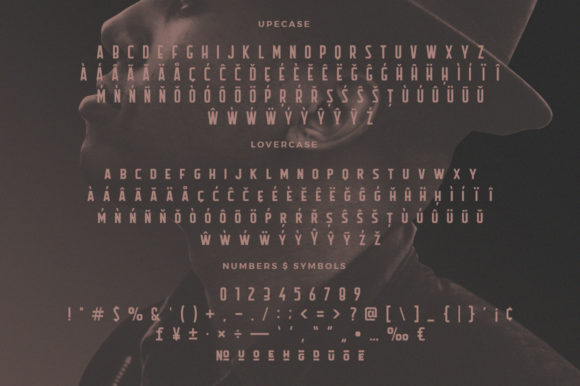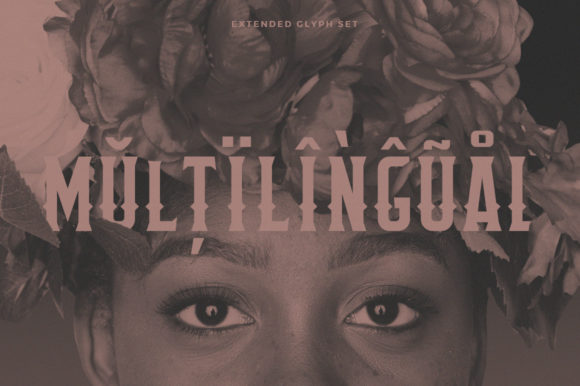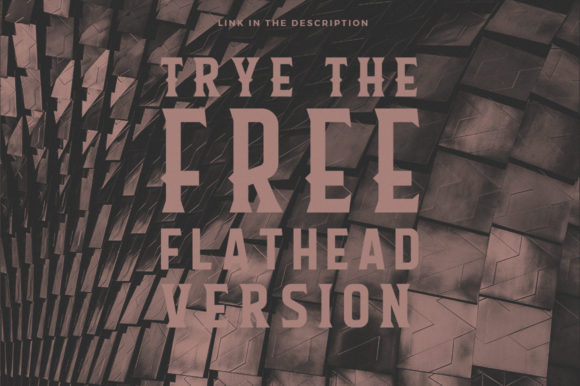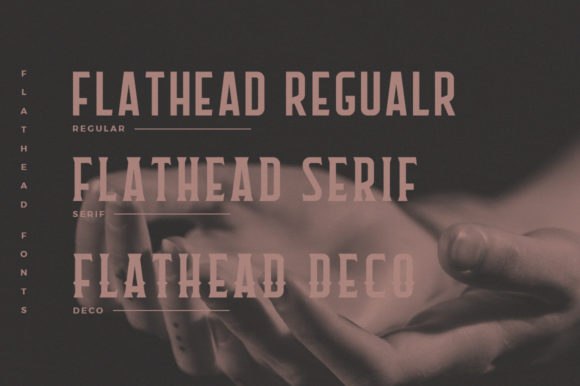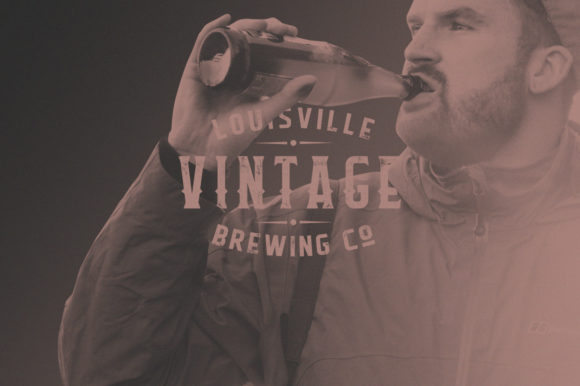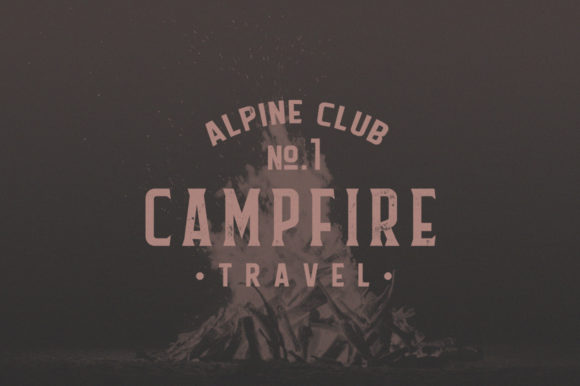
Introducing the Flathead Family Font: A Striking Addition to Your Vintage-Themed Designs
Are you a designer or crafter looking for a font that embodies the spirit of the American Western culture and tattoos? Look no further than the Flathead Family Font. This striking font family includes three versions with a mono weight and different decorations, making it perfect for use in vintage-themed designs.
Inspired by the Wild West
The Flathead Family Font draws inspiration from the rugged and rebellious world of the American Western culture and tattoos. The font’s unique design is reminiscent of the bold and edgy style often associated with tattoo art. With its mono weight and distinct decorations, the Flathead font is sure to add a touch of authenticity to any design.
Three Unique Versions to Choose From
The Flathead Family Font includes three versions, each with its own unique character. The first version is a clean and simple design, perfect for use in bold headings and titles. The second version features a decorative twist, with intricate details and flourishes that add a touch of elegance to any design. The third version is the most ornate of the three, with bold lines and striking decorations that are sure to make a statement.
Perfect for Vintage-Themed Designs
The Flathead Family Font is perfect for use in vintage-themed designs, including posters, logos, and packaging. The font’s unique design and mono weight make it ideal for use in a variety of applications, from rustic and country-themed designs to bold and edgy tattoo-inspired art. Whether you’re a designer looking to add a touch of authenticity to your work or a crafter looking for a unique font to use in your projects, the Flathead Family Font is a great choice.
Key Features of the Flathead Family Font
- Three unique versions: The Flathead Family Font includes three versions with a mono weight and different decorations, giving you a range of options to choose from.
- Inspired by American Western culture and tattoos: The font’s unique design is inspired by the bold and edgy style of the American Western culture and tattoos.
- Perfect for vintage-themed designs: The Flathead font is ideal for use in vintage-themed designs, including posters, logos, and packaging.
- Mono weight: The font’s mono weight makes it perfect for use in bold headings and titles.
Tips for Using the Flathead Family Font
Here are a few tips for using the Flathead Family Font in your designs:
- Use it bold: The Flathead font is designed to make a statement, so don’t be afraid to use it bold. Whether you’re creating a poster or a logo, the font’s bold lines and striking decorations are sure to grab attention.
- Experiment with different versions: The Flathead Family Font includes three unique versions, so experiment with different versions to find the one that works best for your design.
- Pair it with other fonts: The Flathead font pairs well with other fonts, including serif and sans-serif fonts. Experiment with different pairings to find the one that works best for your design.
The Flathead Family Font is a striking addition to any designer’s or crafter’s toolkit. With its unique design, mono weight, and three different versions, this font is perfect for use in vintage-themed designs. Whether you’re creating a poster, logo, or packaging, the Flathead font is sure to add a touch of authenticity and style to your work.